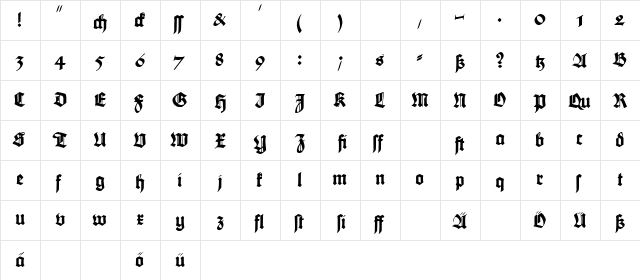
Maximilian Gotisch Regular
Maximilian Gotisch takes a measured approach to typography — its balanced proportions and neutral character make it a reliable workhorse for both digital and print work.